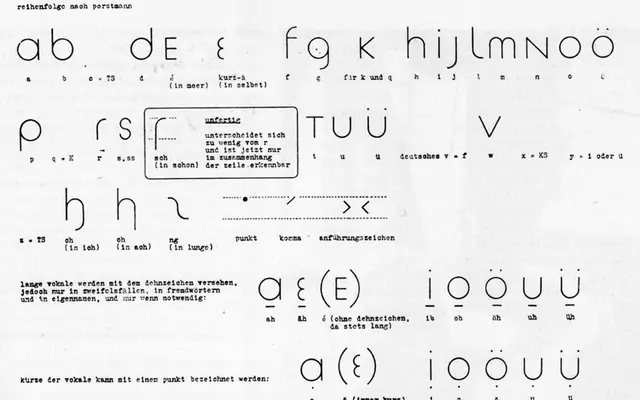
Architype Tschichold
The Foundry Types · Jan Tschichold · 1929
A digital rendering of Jan Tschichold's 1929 single-alphabet experimental typeface, part of The Foundry's Architype Universal collection of interwar avant-garde designs.
Based on Tschichold's geometrically constructed 1929 alphabet, itself influenced by Herbert Bayer's universal type, this face was never put into commercial production in its own time. The Foundry's revival faithfully reconstructs the original, including its phonetic characters and the stark logic of its single-case system. It sits within the Architype Universal collection, which gathers surviving experimental alphabets from the interwar European modernist movement.
A single-alphabet geometric construction from the Bauhaus-era avant-garde tradition, with only one case and phonetic characters; best classified as display due to its highly experimental, art-movement-specific form.